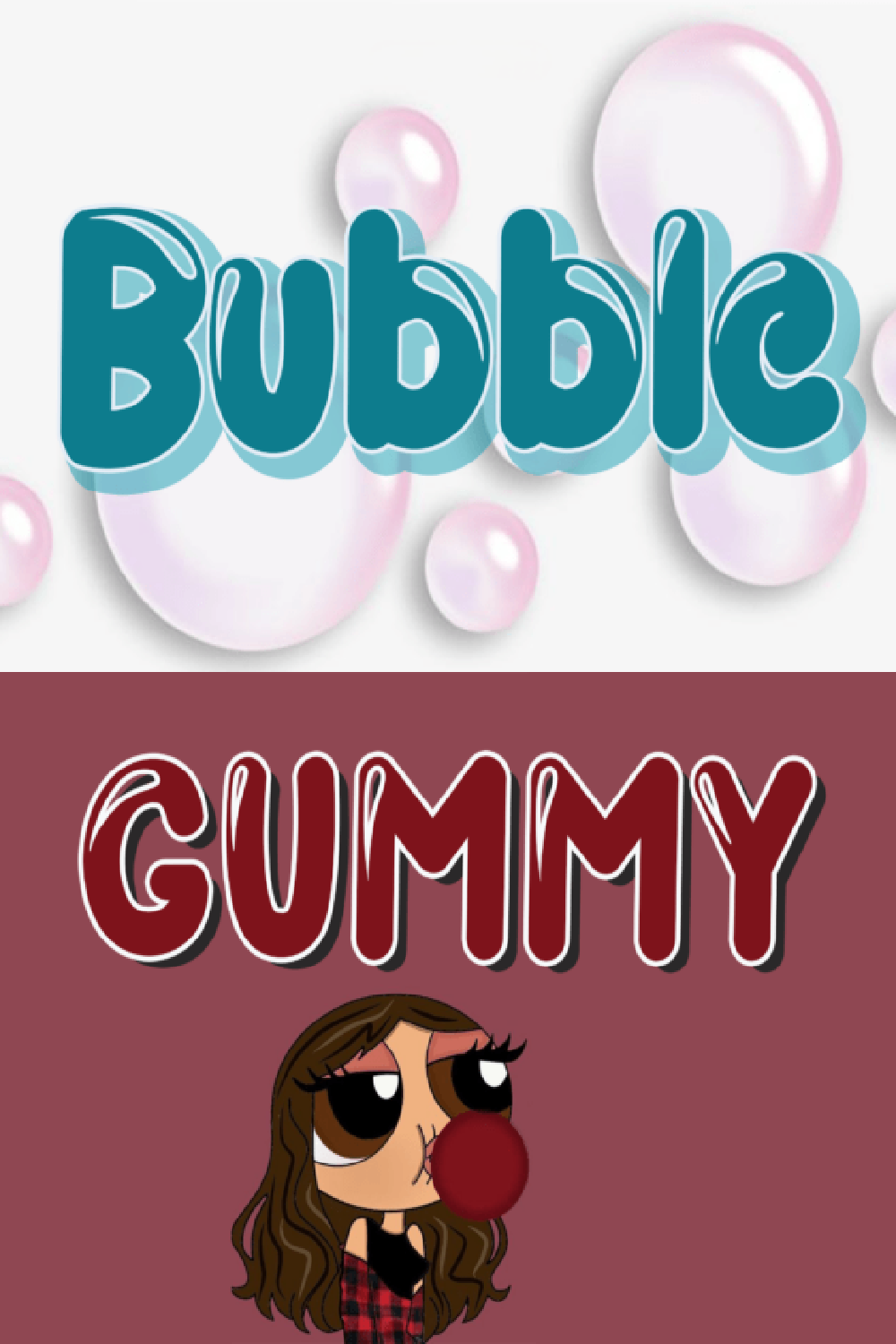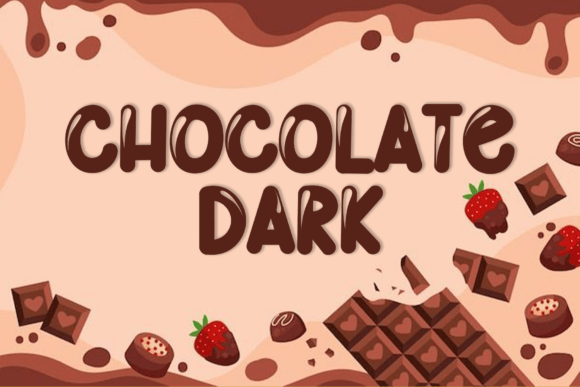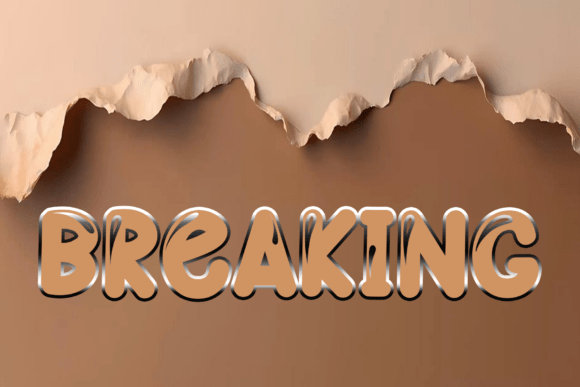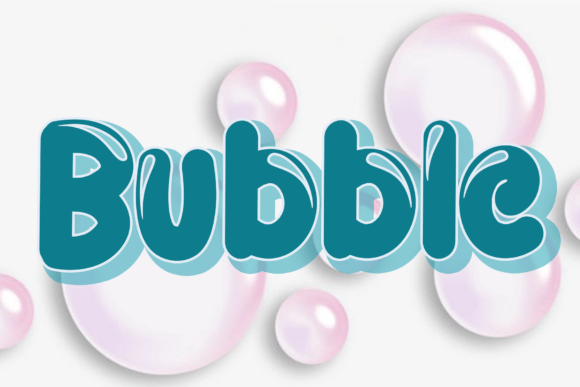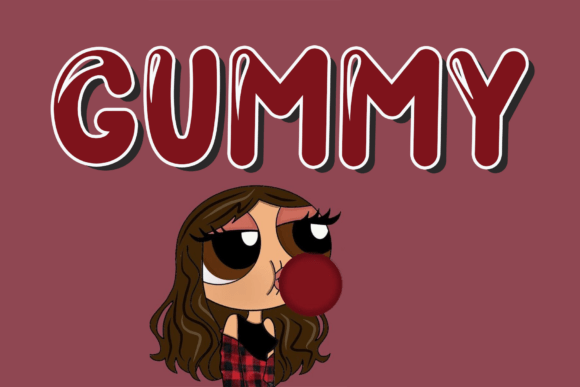
About the Bubble Font
We are excited to introduce Bubble Font, a must-have typeface for any serious designer. Bubble is a simple handwritten font. This versatile font has a wide spectrum of applications ranging from greeting cards to headlines and is guaranteed to add a simple and natural feel to your next project!